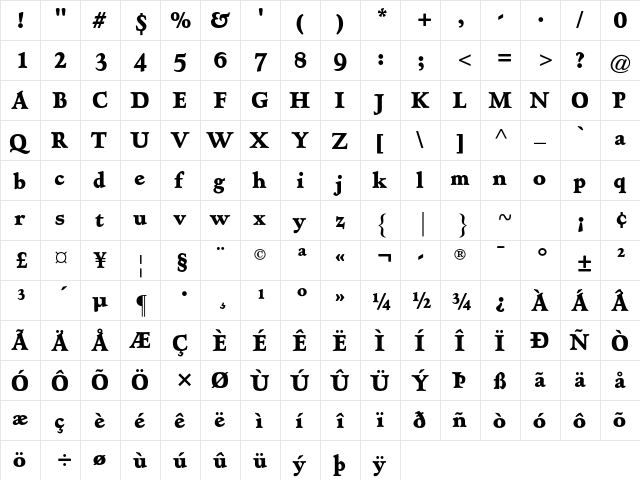
AT Hadriano Std Cond Extra Bold Font Preview
Design Context for AT Hadriano Std Typeface
AT Hadriano Std takes a measured approach to typography — its balanced proportions and neutral character make it a reliable workhorse for both digital and print work. The heavy weight commands attention and anchors typographic hierarchies. The condensed width makes it efficient for tight spaces without sacrificing legibility.